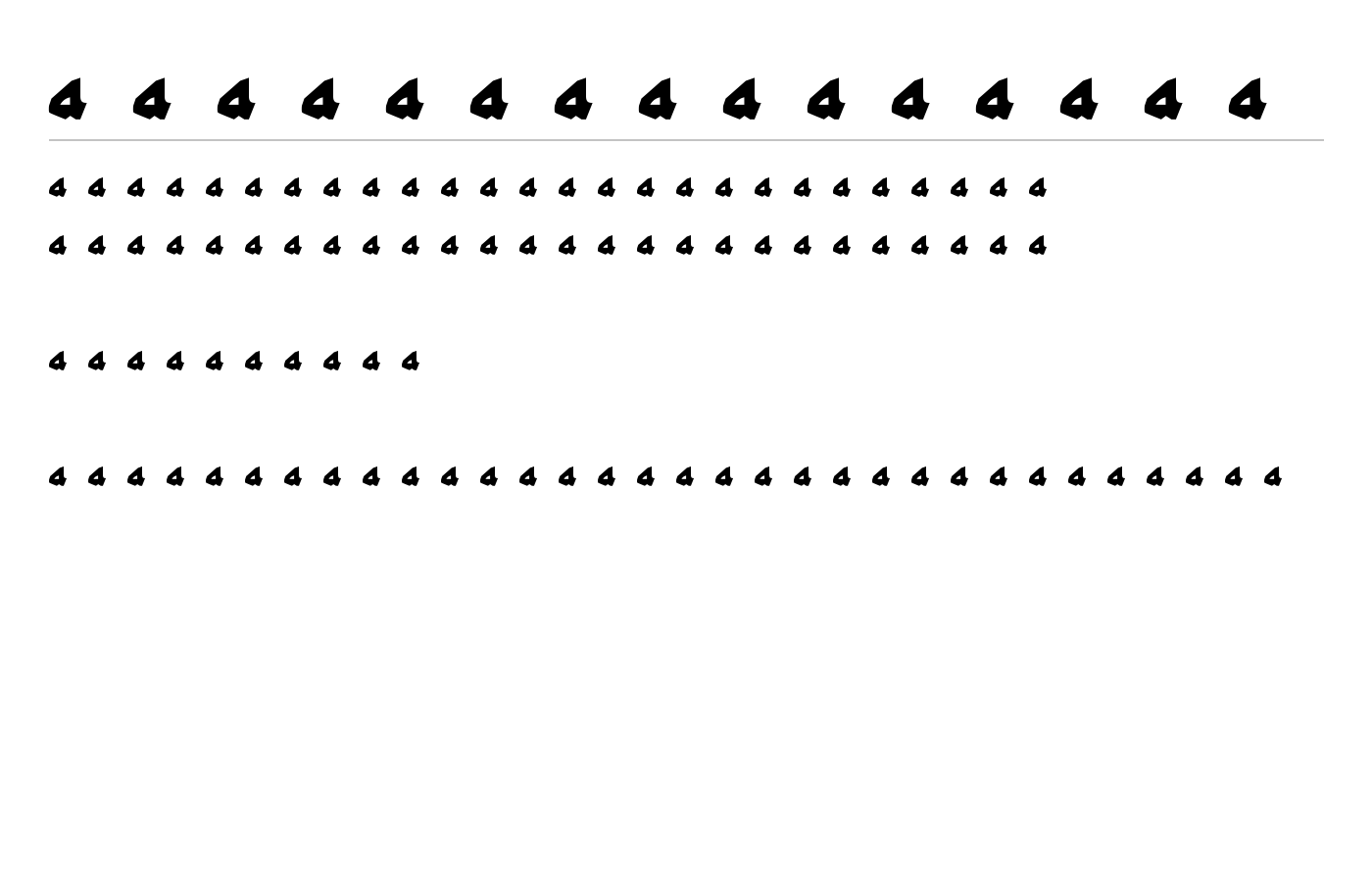
Alghorie Syawal is a bold, condensed sans serif font with a strong, angular design and high stroke contrast that gives it a dynamic, almost calligraphic feel. Its sharp edges and thick strokes create a striking, energetic impression, making it well suited for eye-catching headlines, posters, and branding that requires a modern and assertive look. This font works best where impact and uniqueness are key, adding personality and a creative edge to any design.
alghorie syawal Font
About alghorie syawal Font